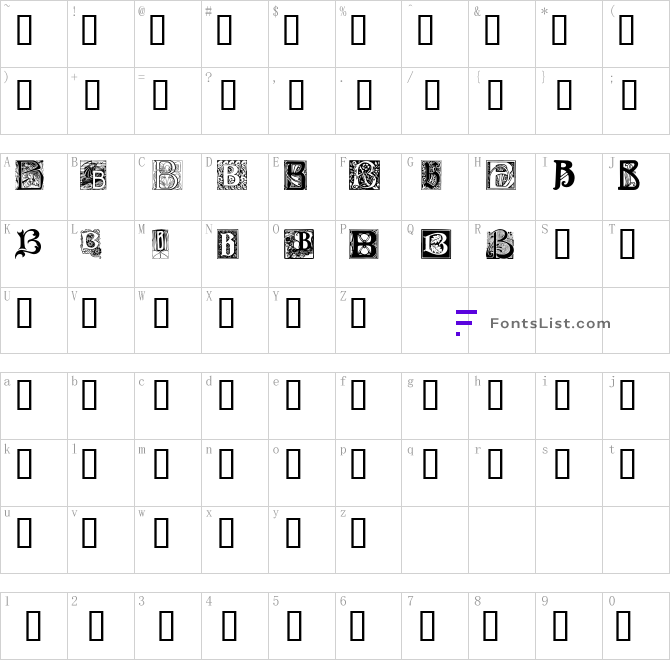
- Font Name:Art Nouveau Initials B
Art-Nouveau-Initials-B.ttf is a very beautiful artistic font, Art-Nouveau-Initials-B.ttf is widely used in the design and printing of various books and pictures,Art-Nouveau-Initials-B.ttf has a strong visual impact,Art-Nouveau-Initials-B.ttf is a commonly used font in newspapers, magazines and books, and is used in posters, e-commerce Poster design, store design, logo design, font design and other fields.Art-Nouveau-Initials-B.